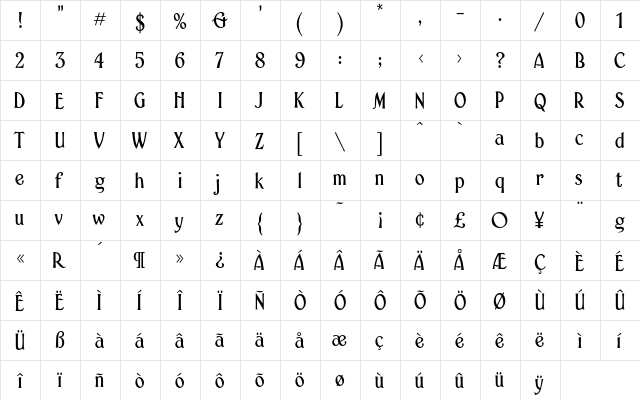
Blackfriar Regular
Design Context for Blackfriar Typeface
Blackfriar offers clean, dependable letterforms without strong stylistic allegiance, making it a practical choice for designers who need flexibility.
Pro Tip: Use Blackfriar in both headline and body roles to test its range before committing to a single application.